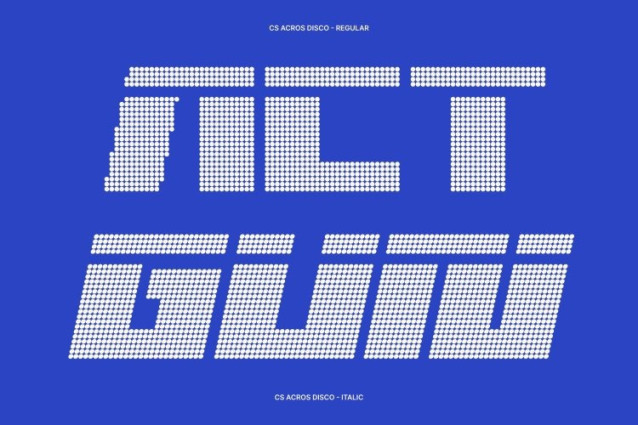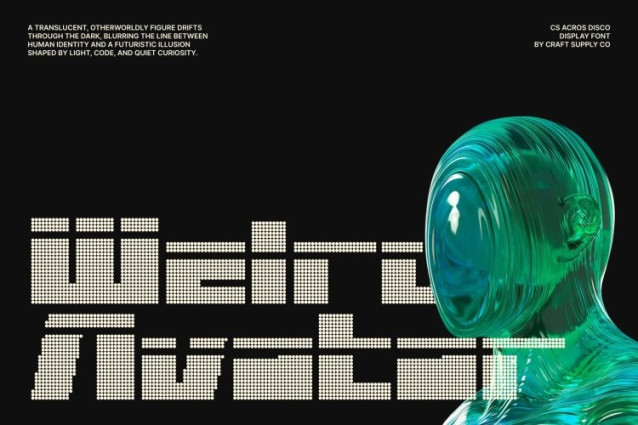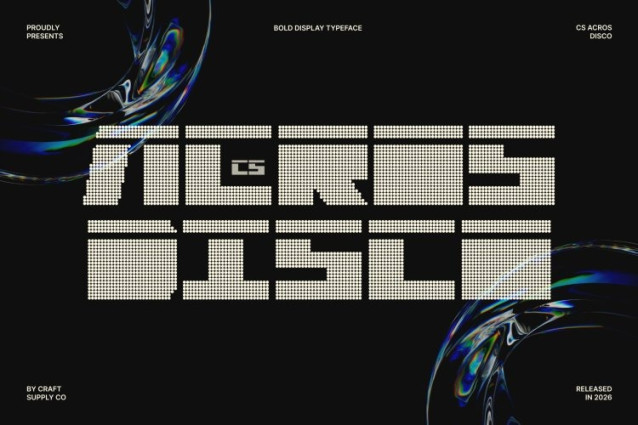
CS Acros Disco Font
CS Acros Disco Font This is a futuristic display font built on strong techno foundations and energized with a lively disco spirit. Its bold, digital-inspired construction delivers a powerful, forward-thinking look that feels intense, modern, and visually striking.
Blocky Techno Forms for Maximum Impact
Defined by solid, blocky letterforms and sharp geometric structure, this font commands attention instantly. The confident shapes create a high-impact presence that works perfectly in bold headlines, titles, and statement visuals where strength and clarity are essential.
Playful Disco Expression with Dynamic Character
While its structure is firm and futuristic, disco-inspired details introduce rhythm, movement, and expressive flair. This contrast between rigid techno forms and playful energy makes the font feel dynamic, exciting, and full of personality never static or cold.
Perfect for Futuristic Branding and Creative Projects
Ideal for futuristic branding, tech visuals, posters, event graphics, gaming designs, and experimental creative projects, this font delivers a bold fusion of digital power and festive energy. It’s designed for work that wants to look strong, innovative, and ready for the spotlight.